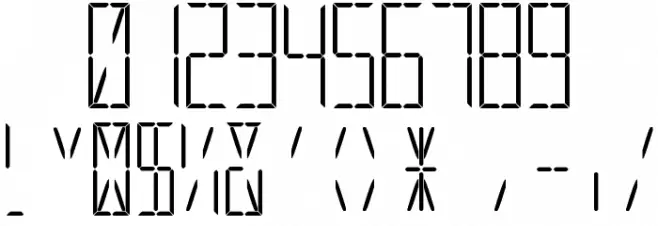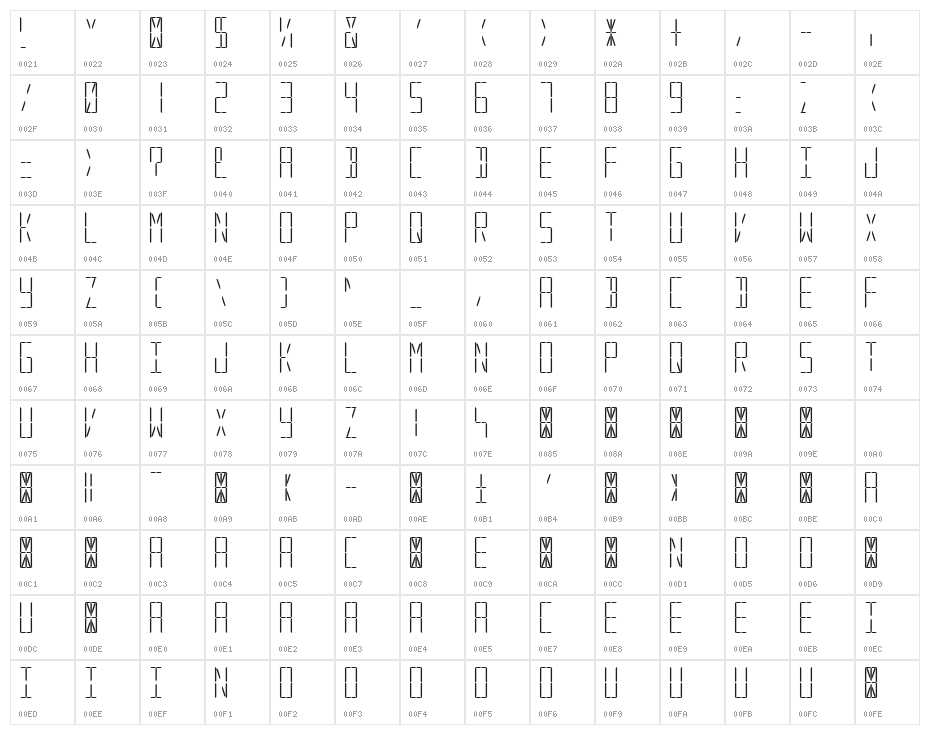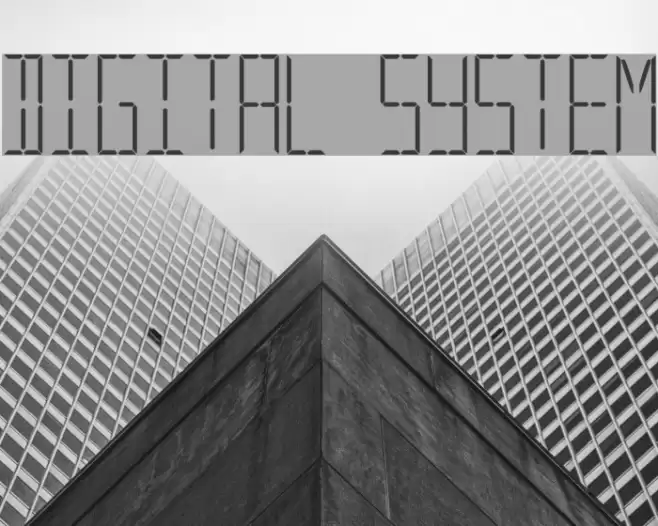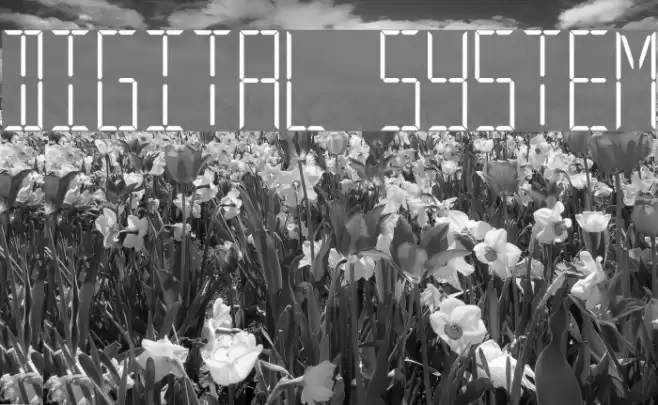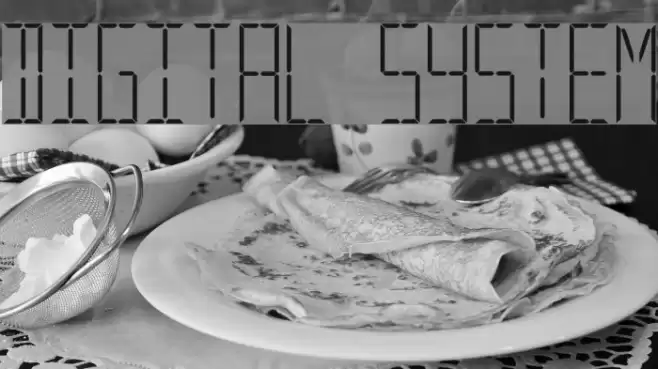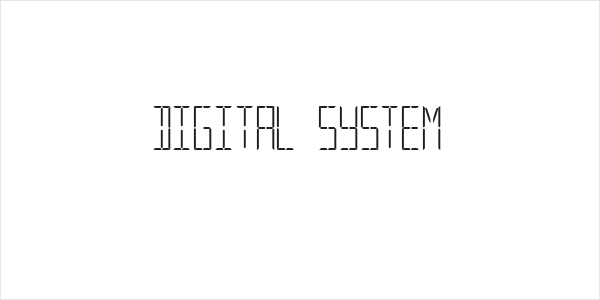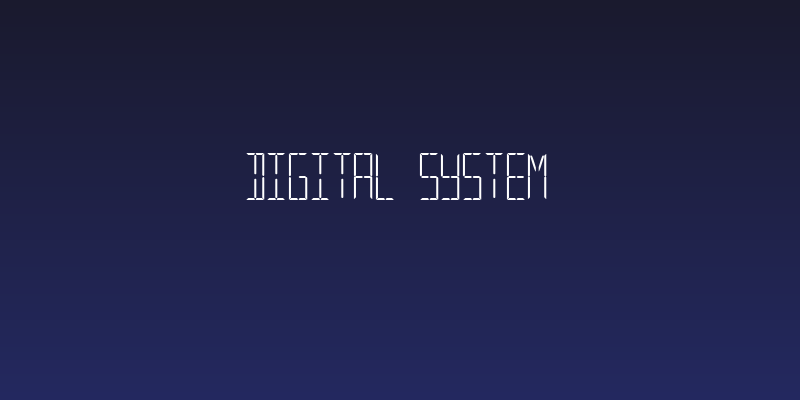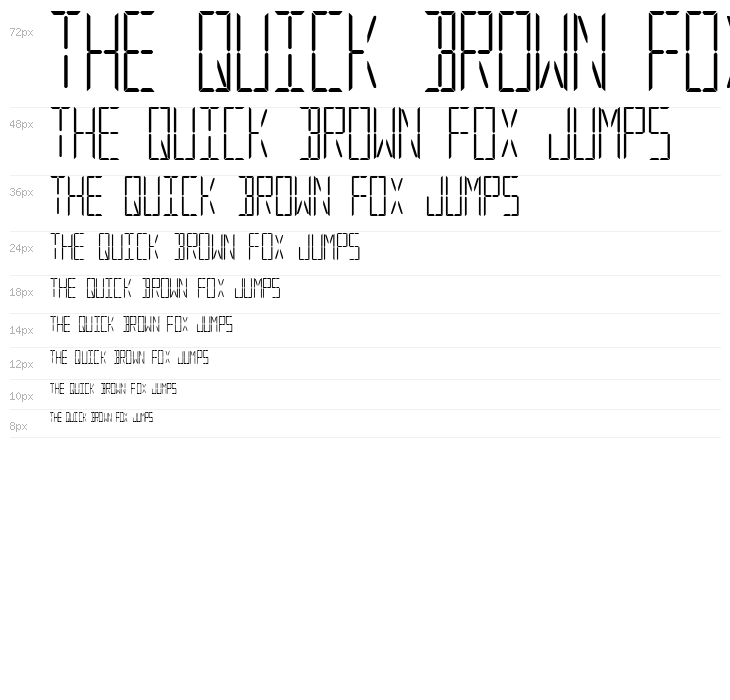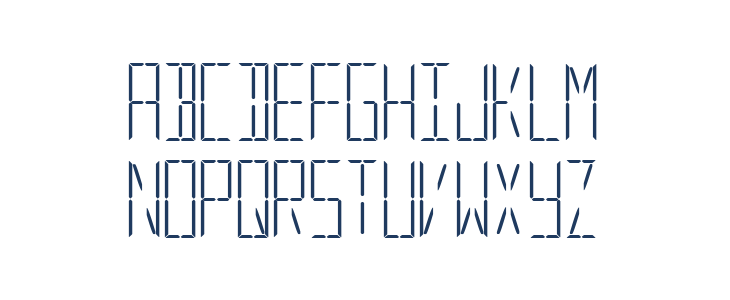
Digital System Font
Digital System Description
This font features a distinct digital and futuristic style, reminiscent of segmented LED displays. Each character is constructed with a series of straight lines and angles, creating a geometric and technical appearance. The uppercase and lowercase letters maintain a consistent height, contributing to a uniform and structured look. The numbers and special characters follow the same segmented pattern, ensuring a cohesive design throughout. This font is ideal for projects that require a modern, tech-inspired aesthetic, such as digital interfaces, tech branding, or futuristic-themed designs.
| Use Case | Headlines, Logos, Digital displays |
| Proposed Projects | Ideal for digital interfaces, tech branding, futuristic-themed designs, and electronic displays. |